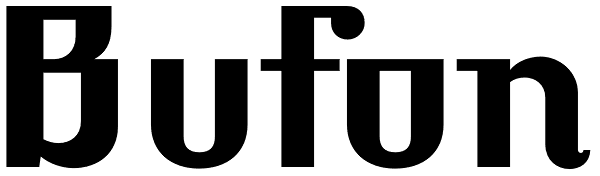
Bufon
Bufon is a font that holds many ligatures (815); a characteristic that intervenes in the rhythm of words. For this aim, a study of the combination of signs in the text was made. The interest was to detect the most frequent duets and trios of...
Bufon
Bufon Italic